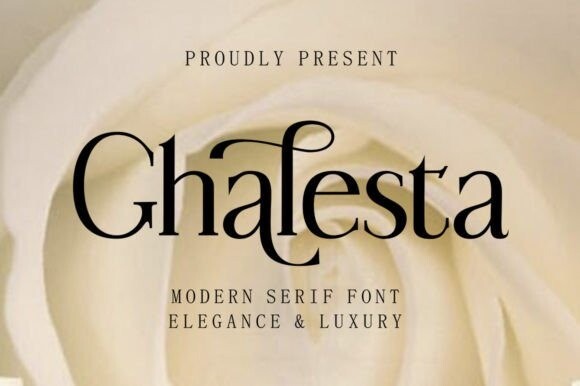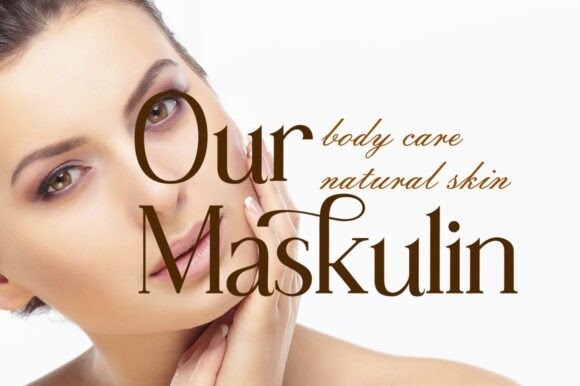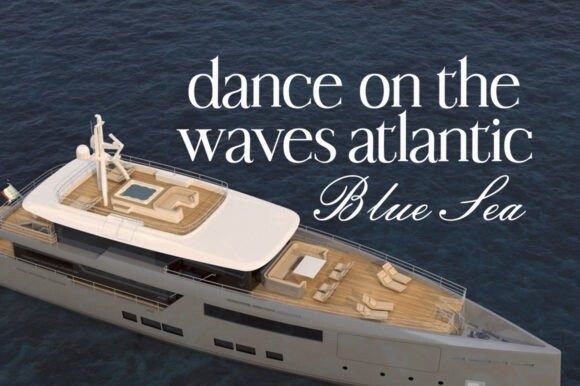
Ghalesta Font
Ghalesta Typeface , created by Ajiba studio, A serif modern and classic typeface that has own unique style & modern look. This typeface is perfect for an elegant & luxury logo, book or movie title design, fashion brand, magazine, clothes, lettering, quotes, and so much more